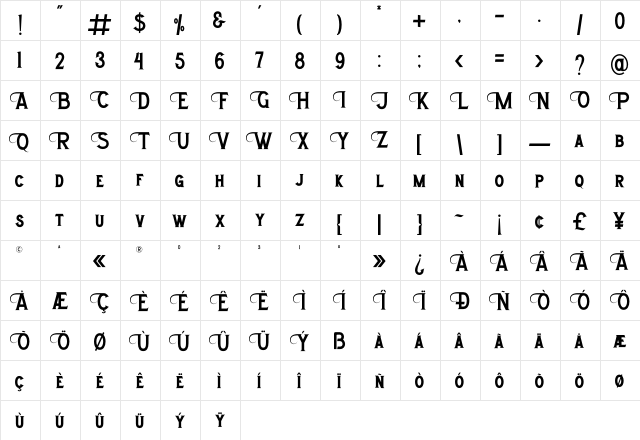
Morthwicks Plain Regular
Design Context for Morthwicks Plain Typeface
Morthwicks Plain takes a measured approach to typography — its balanced proportions and neutral character make it a reliable workhorse for both digital and print work.